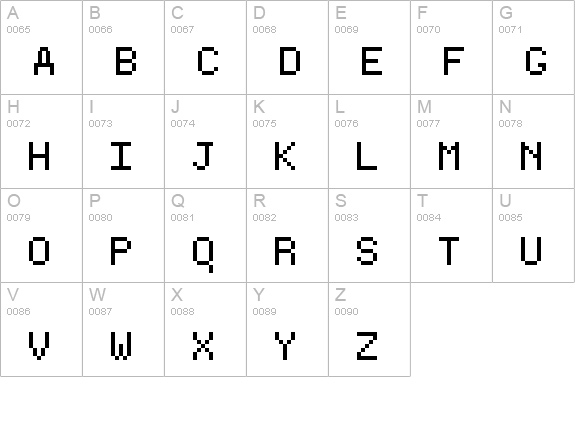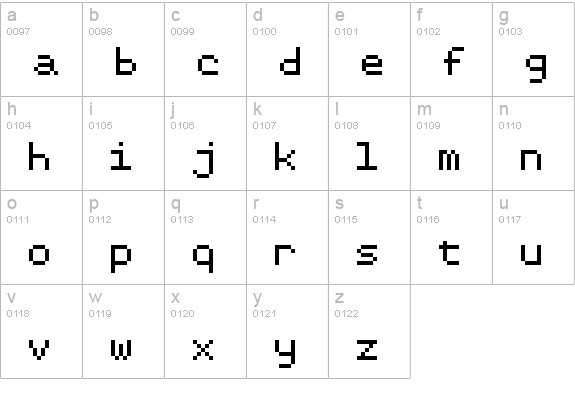
SkwareDots Font Details
Introducing SkwareDots, a captivating and versatile font that will bring a touch of uniqueness to all your design projects. This font is a perfect blend of modernity and playfulness, making it suitable for a wide range of creative endeavors. SkwareDots features a distinctive geometric design, incorporating dots and squares to create a visually striking and impactful appearance. Each character is meticulously crafted, with clean lines and precise details, ensuring clarity and legibility in any size or format. With its bold and dynamic presence, SkwareDots is guaranteed to grab attention and leave a lasting impression. Whether you're designing eye-catching headlines, creating captivating logos, or crafting stunning posters, this font will effortlessly elevate your work to new heights. But what sets SkwareDots apart is not only its stunning aesthetics, but also its accessibility. As a font that values inclusivity and creativity, SkwareDots is freely available to download at FontsMarket.com. Yes, you read that right - it's absolutely free! Now, you can unleash your artistic potential without any limitations, as this font empowers you to express yourself without breaking the bank. So why wait? Embrace the allure of SkwareDots and let your designs stand out from the crowd. Download this incredible font from FontsMarket.com today and embark on a journey of endless creativity. With SkwareDots, the possibilities are truly boundless.